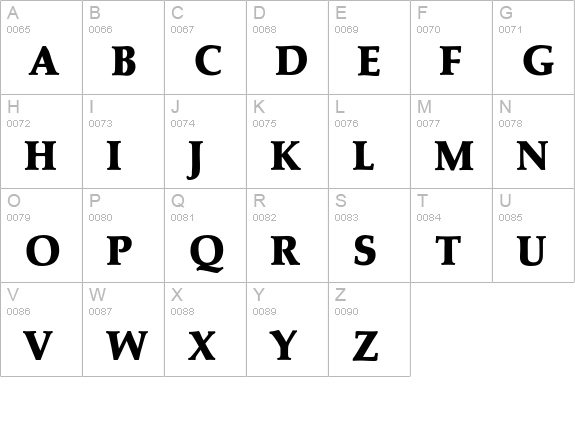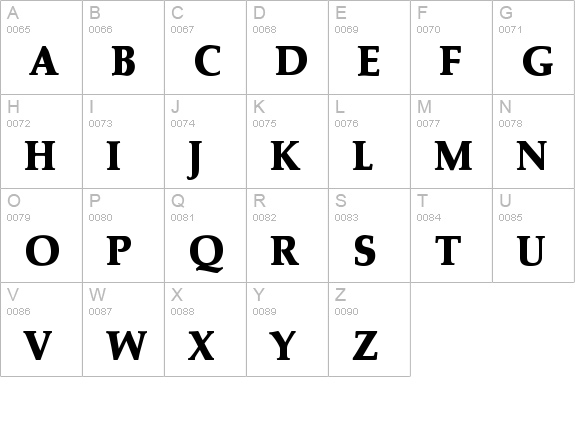
Marathon-ExtraBold is an extra-heavy, attention-grabbing variant in the Marathon typeface family \xE2\x80\x94 well suited to high-impact headlines, posters, and bold branding.
Marathon-ExtraBold font is a stunning and bold typeface that commands attention with its strong and confident presence. It exudes a sense of power and energy, making it perfect for headlines, titles, and other prominent design elements. The sleek and stylish letterforms of Marathon-ExtraBold embody a contemporary aesthetic, adding a touch of modernity to any project. With its extra bold weight, Marathon-ExtraBold is designed to make a statement. Whether used in printed materials, advertisements, or digital designs, this font will captivate viewers and leave a lasting impression. Its distinct and robust letterforms ensure maximum legibility, even at smaller sizes, ensuring that your message is delivered with clarity and impact. One of the most remarkable aspects of Marathon-ExtraBold font is that it is available for free. Yes, you read that right - this exceptional typeface can be freely downloaded from FontsMarket.com, a reputable source for high-quality fonts. This means that you can easily access and utilize this impressive font without any additional cost. It's a fantastic opportunity to enhance your design projects with a professional and eye-catching typeface, without breaking the bank. Don't miss out on the chance to add Marathon-ExtraBold font to your collection. Its versatility, boldness, and unique charm will undoubtedly elevate your designs to new heights. Download it for free at FontsMarket.com today and let your creativity soar.